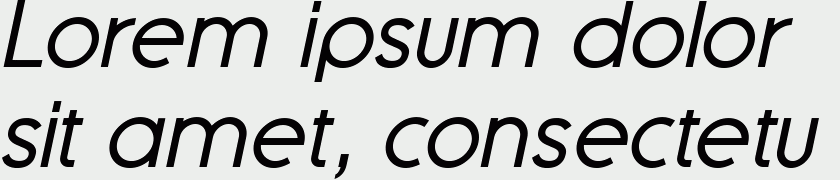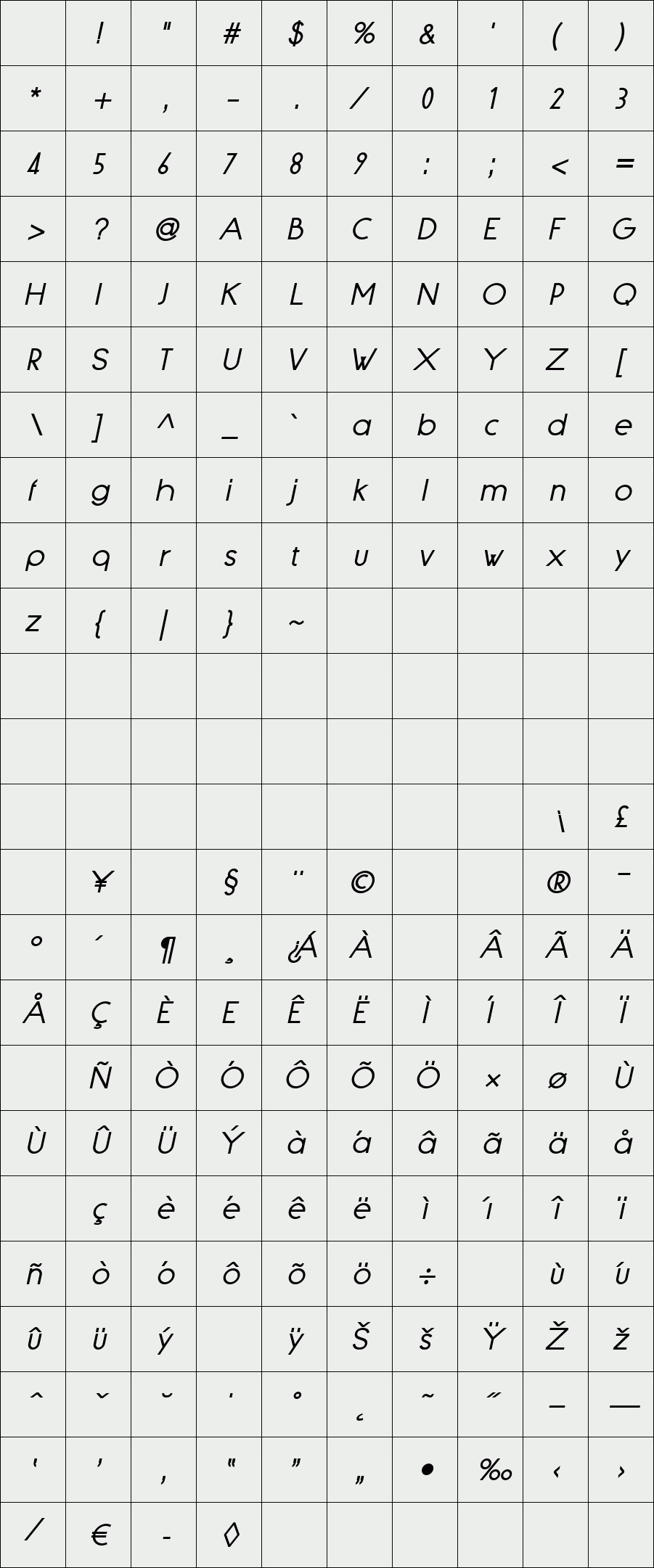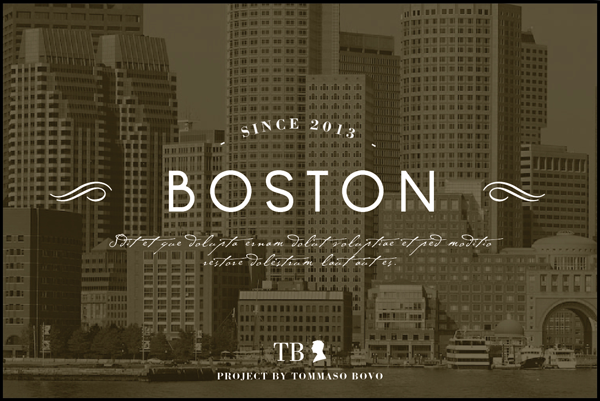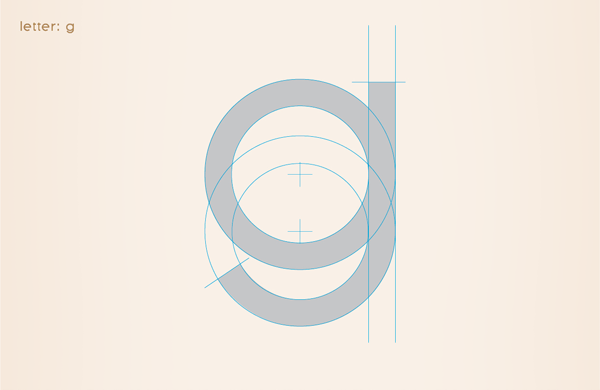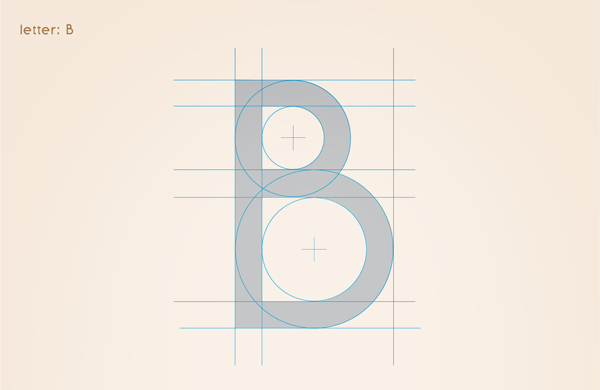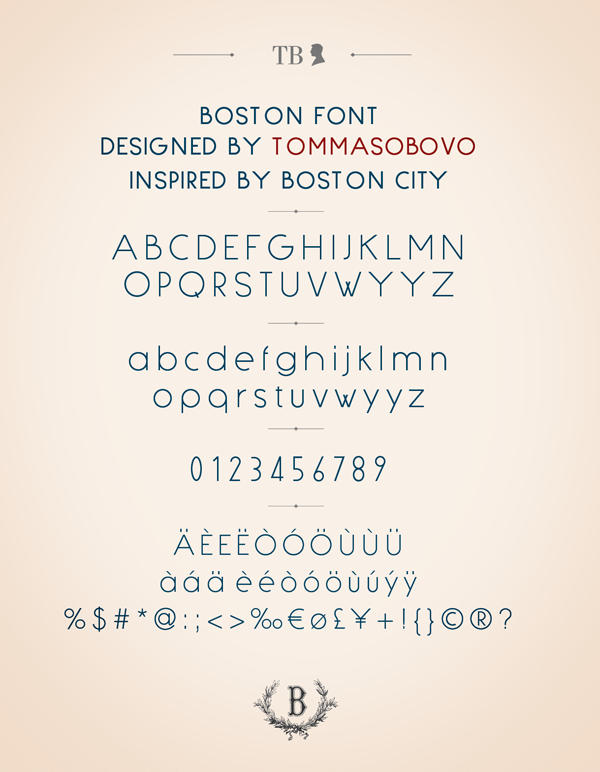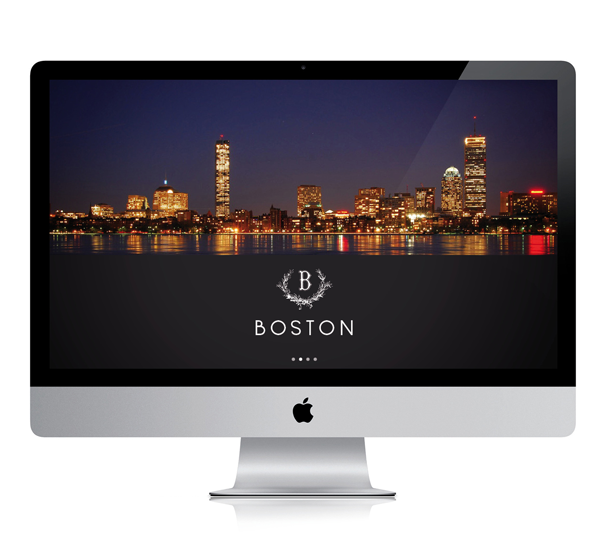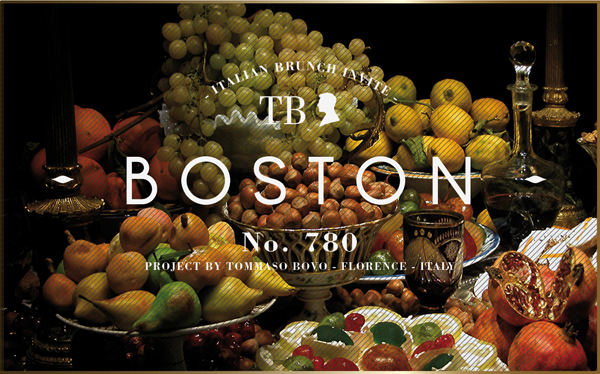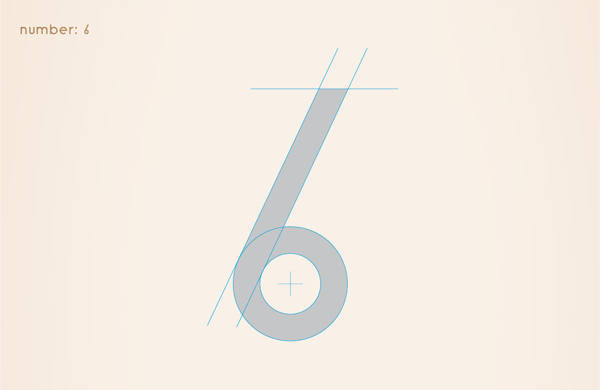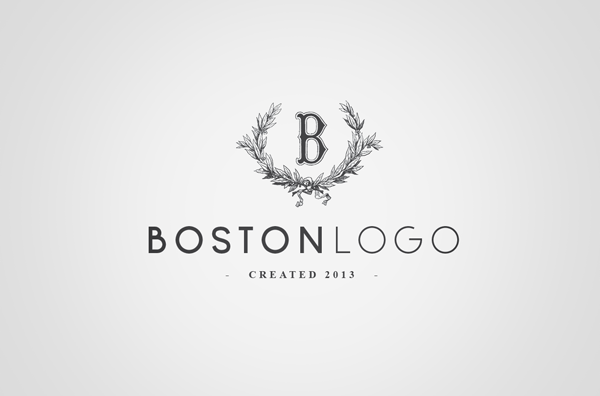
Boston
Boston mediumItalic
Boston
Boston mediumItalic
San-serif typeface inspired by Boston City. Designed by Tommaso Bovo (Florence, Italy).
Tommaso Bovo